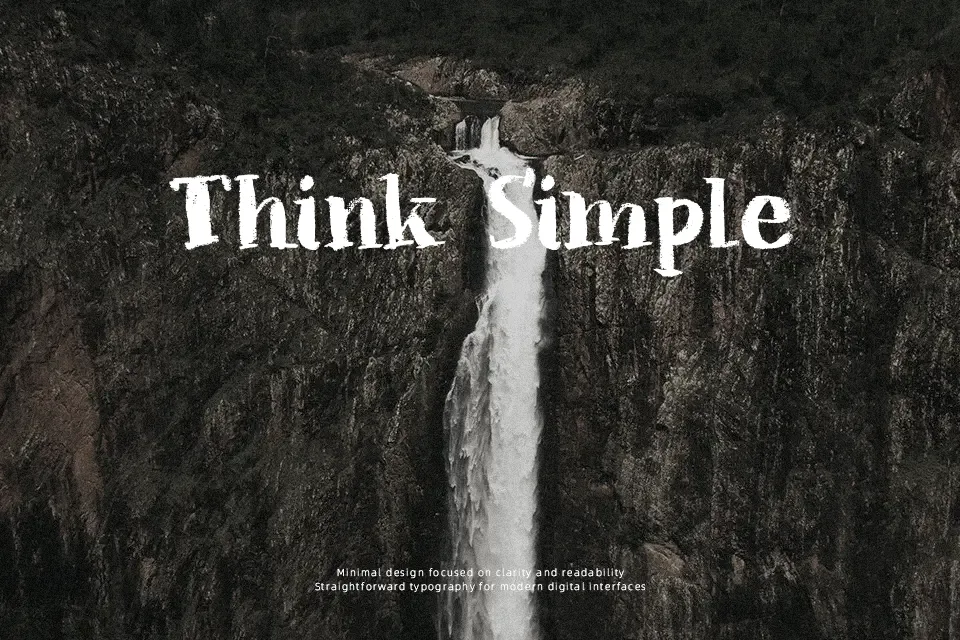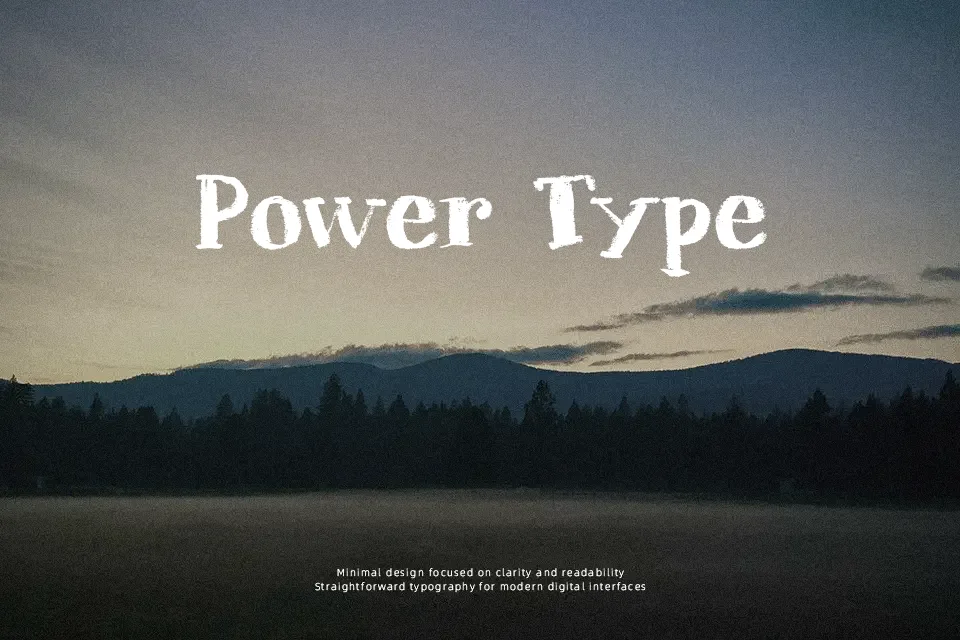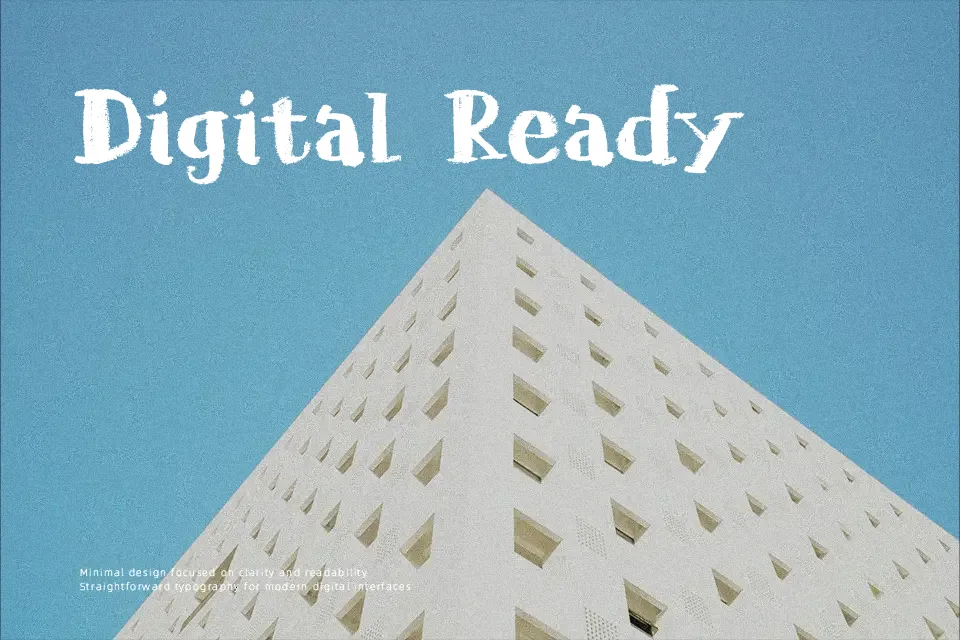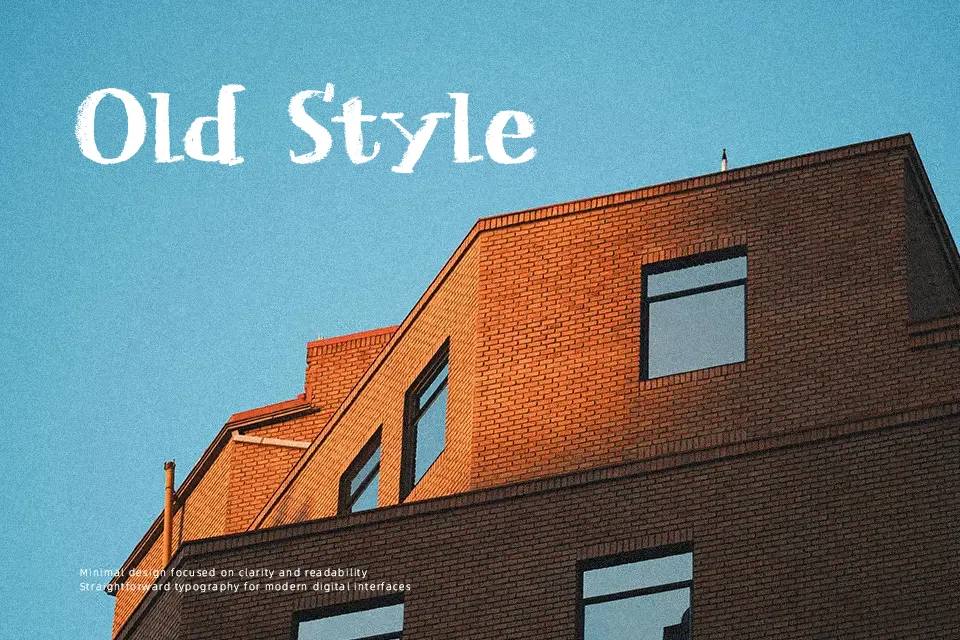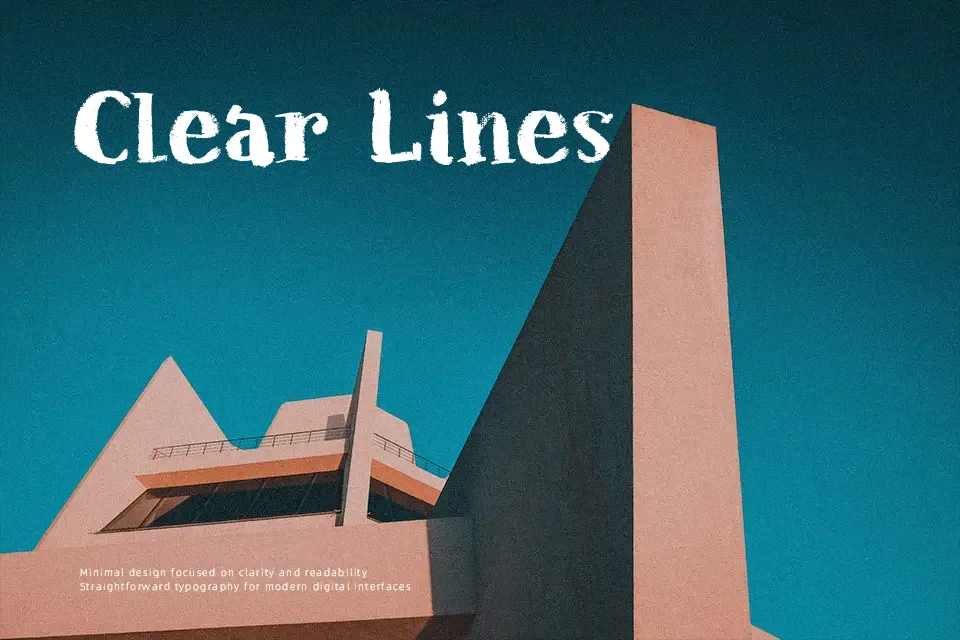
Chalkaholic Font
A rustic chalkboard sign or artisanal food label benefits immediately from the textured character of Chalkaholic Font. The typeface delivers heavy, inconsistent stroke weights with jagged outer contours, mimicking real crayon or chalk pressure. Its proportions stay relatively uniform across glyphs, while slightly loose spacing prevents the distressed edges from clashing in headline layouts. At large display scales, the letterforms provide strong visual impact and distinct personality for festival flyers and cafe branding. However, the heavy erosion and rough contours cause fine letter details to blur at small sizes, making the design unsuitable for continuous body copy or dense paragraphs.
Best For: chalkboard menu headers, artisanal food packaging, craft beverage labels, music festival posters
Not Ideal For: long body text paragraphs, mobile app user interfaces, small caption text, formal corporate documents
Perfect for branding, headline, and packaging, with a artistic and decorative style.